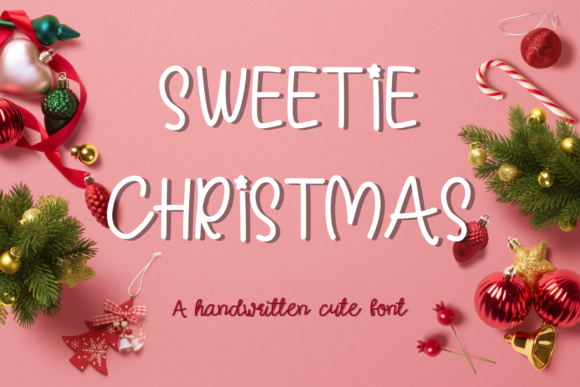
Sweetie Christmas Font
Introducing Sweetie Christmas Font, the ultimate Christmas-themed font that will add a touch of festive cheer to your designs! This delightful script font, meticulously crafted by Danika D., captures the magic and warmth of the holiday season.
With its playful and charming handwritten style, Sweetie Christmas Font exudes a sense of joy and celebration. Each letter is lovingly rendered, featuring elegant flourishes and whimsical details that evoke the spirit of Christmas. Whether you're working on holiday cards, invitations, posters, or any other festive project, this font is sure to bring a smile to your face and those of your readers.
Sweetie Christmas Font's versatility extends beyond the holiday season. Its playful and charming style makes it perfect for a wide range of projects, including children's books, gift tags, party invitations, and more. Unleash your creativity and let your designs sparkle with the magic of Sweetie Christmas Font.
This font is not just a collection of characters; it's an invitation to embark on a creative journey. Imagine the possibilities: Sweetie Christmas Font can transform your designs into captivating works of art, spreading joy and cheer wherever they're displayed. Let your imagination soar and let Sweetie Christmas Font be your creative companion.